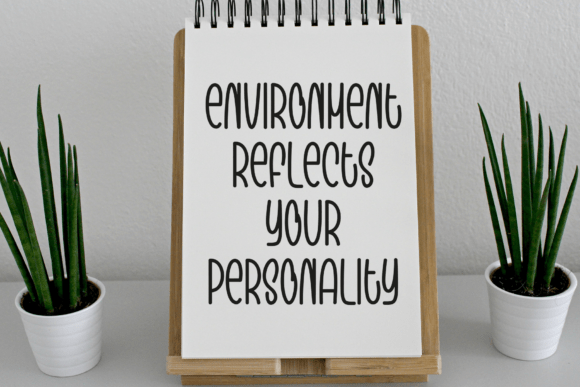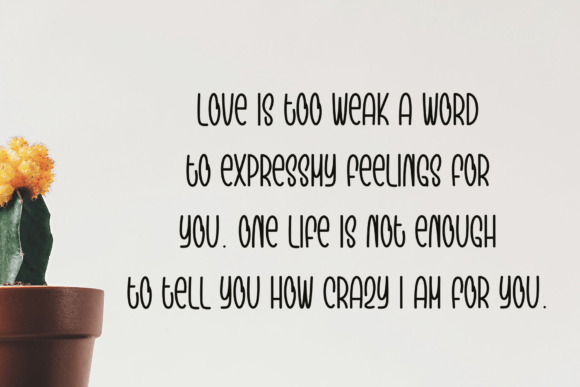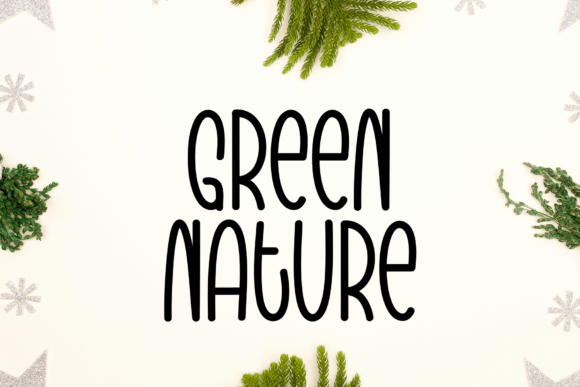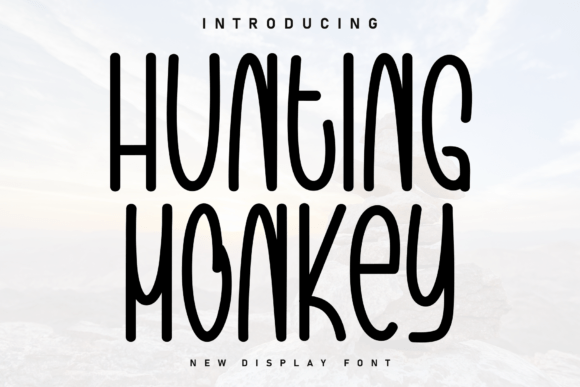
Introduction to Hunting Monkey Font
Hunting Monkey is a charming handwritten font filled with a sense of heartfelt perfection.
Its smooth strokes and organic lines evoke a relaxed atmosphere, making it perfect for a variety of design projects Whether used for branding, invitations or social media graphics.
Why Choose Hunting Monkey Font?
Hunting Monkey Font offers exceptional quality and versatility, making it a valuable addition to your design toolkit. Whether you’re creating for personal projects or commercial use, Hunting Monkey Font delivers professional results.